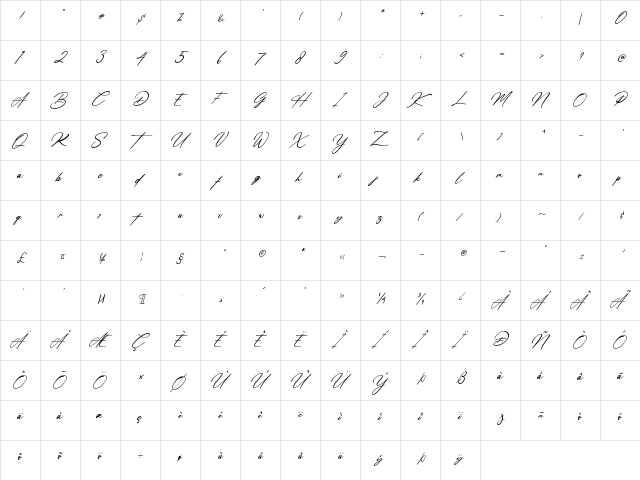
Amsterdam Signature Italic Regular
| Foundry | Staircase Studio |
| Designer | Staircase Studio |
Design Context for Amsterdam Signature Italic Typeface
Amsterdam Signature Italic is a composed and adaptable typeface that performs quietly and consistently across a wide range of design contexts. Its italic angle brings a sense of urgency and motion to the letterforms.